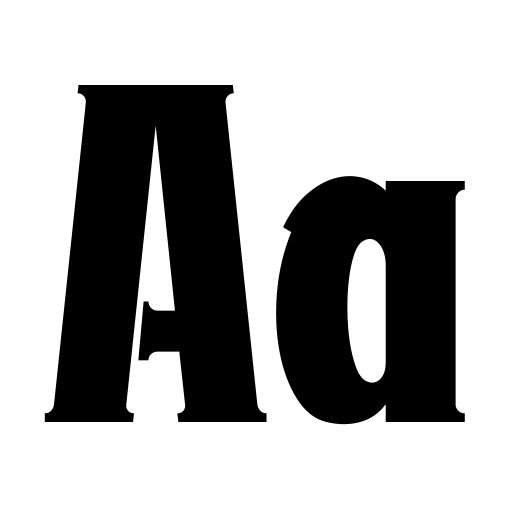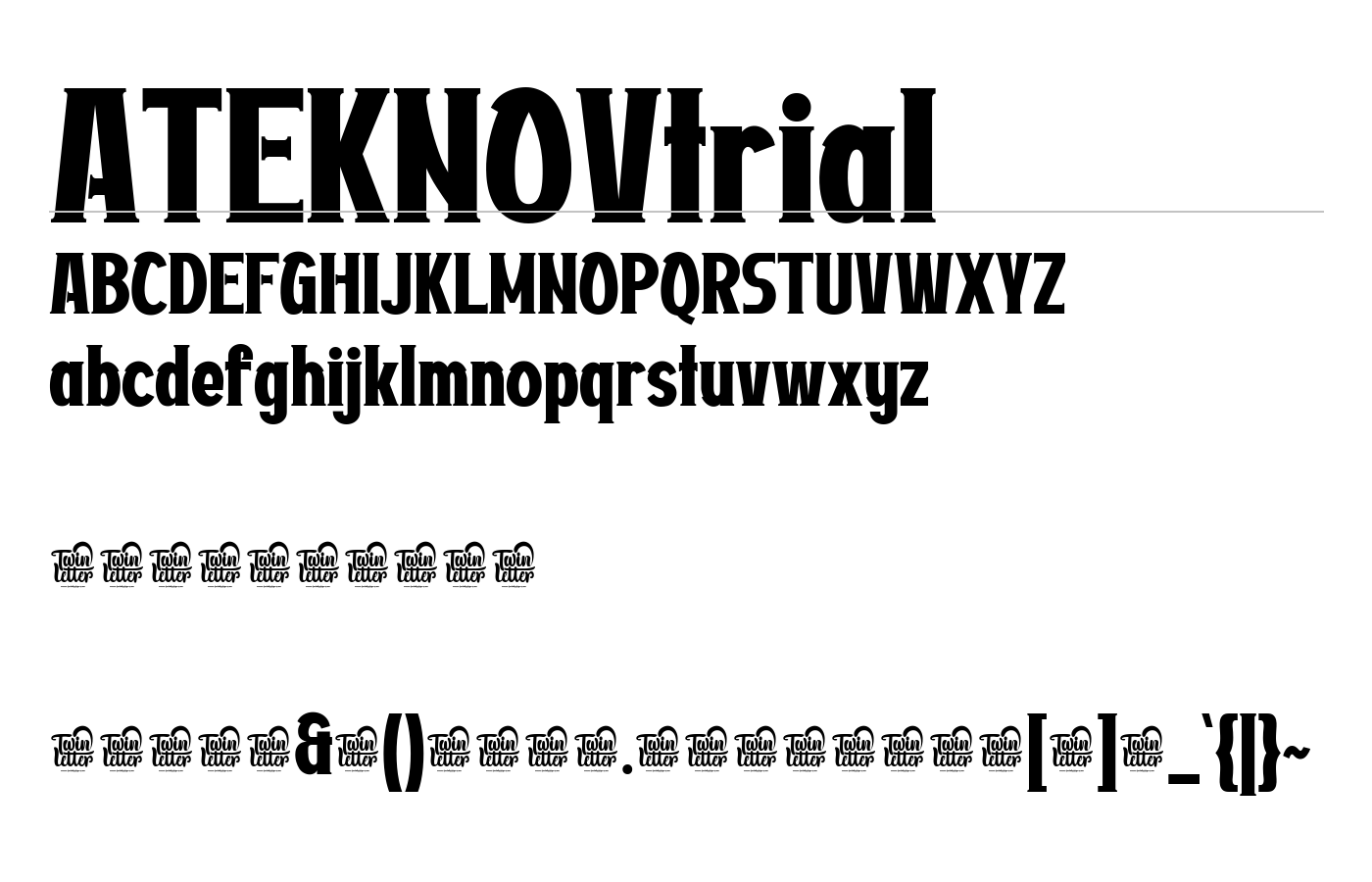
ATEKNOVtrial is a bold, condensed serif font with a strong presence and distinctive thick serifs that give it a vintage, industrial feel. Its high contrast between thick and thin strokes combined with the tall, narrow letterforms makes it ideal for impactful headlines, logos, and branding that aim to convey confidence and authority. This font works well in design contexts where a striking, classic yet robust style is needed to grab attention and communicate strength.
ATEKNOVtrial Font
About ATEKNOVtrial Font